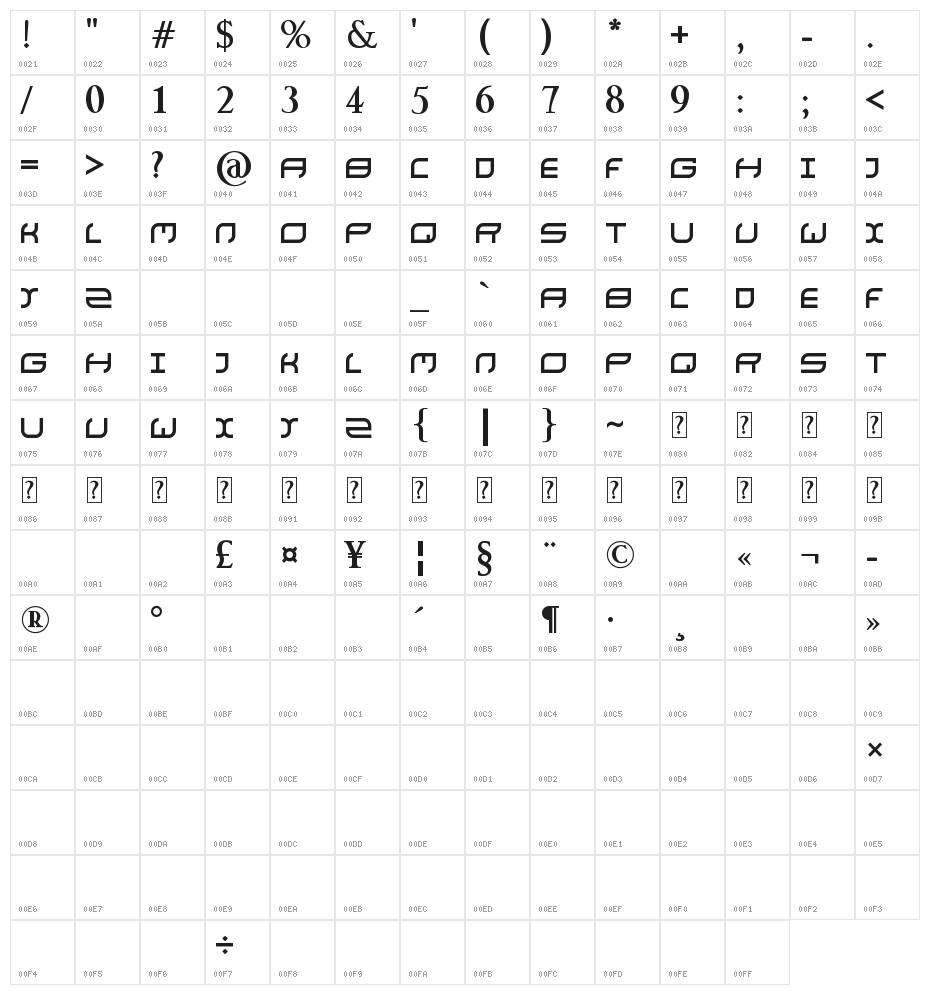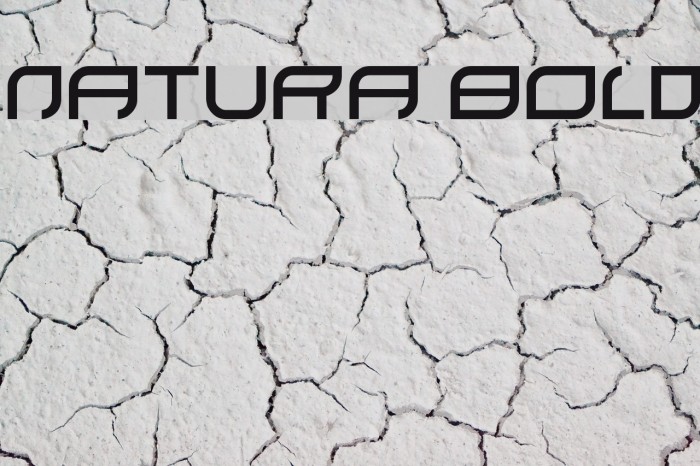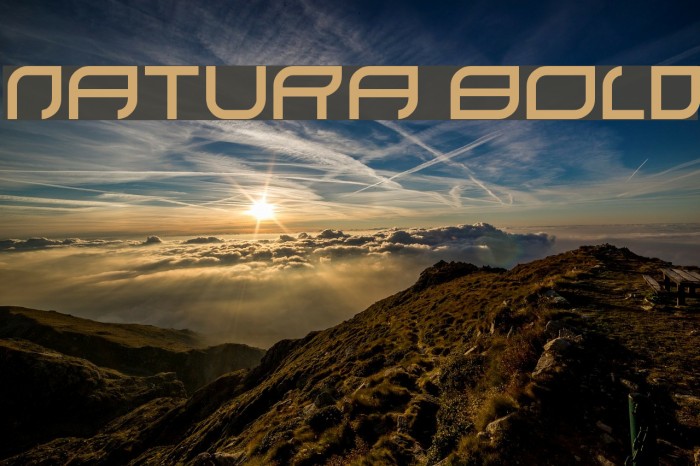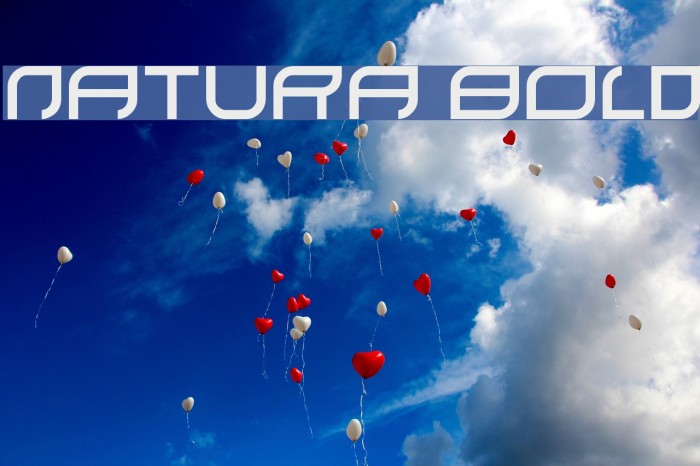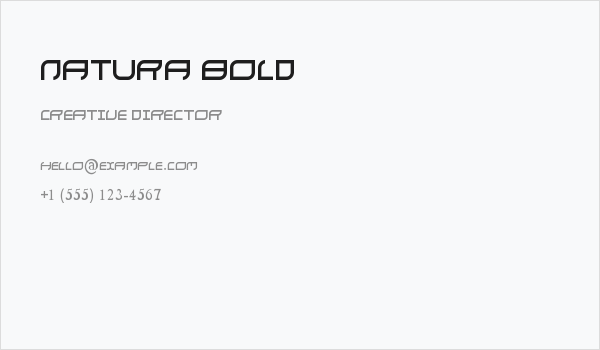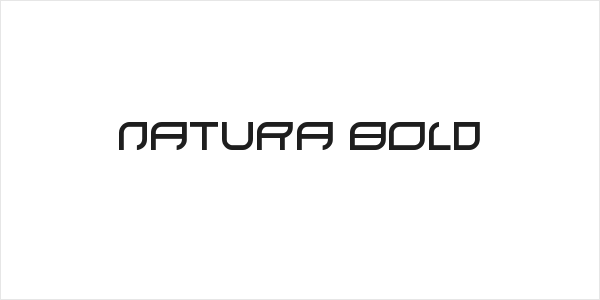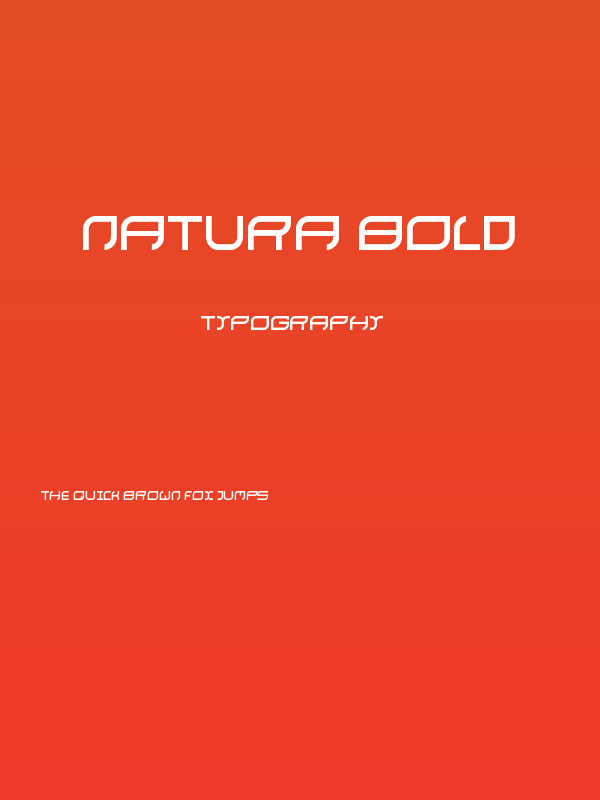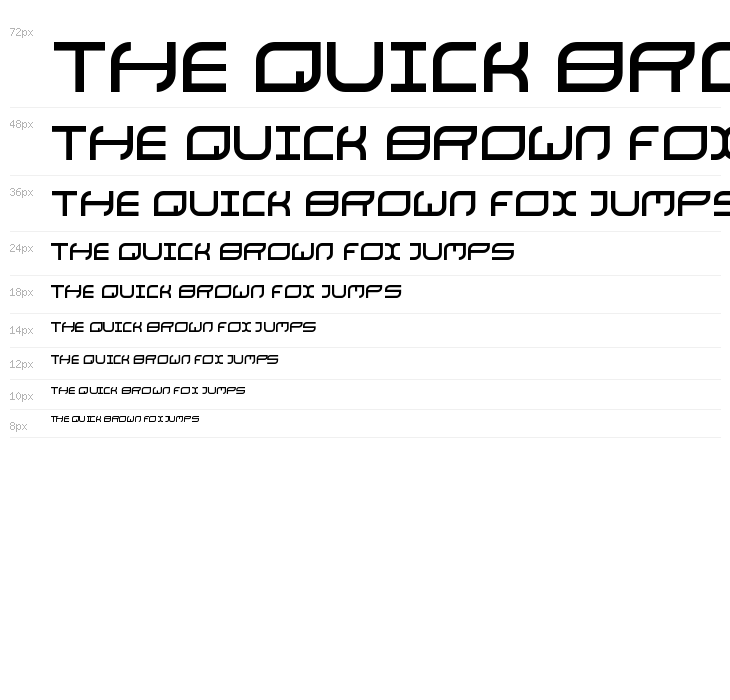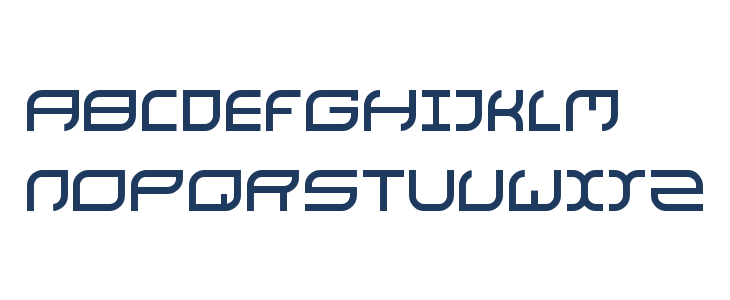
natura Bold Font
natura Bold Description
This font features a futuristic and geometric design with a strong emphasis on clean lines and angular shapes. The uppercase letters are distinct with a modern, tech-inspired aesthetic, while the lowercase letters maintain a consistent style that complements the uppercase. The numerals are bold and clear, designed for easy readability. Special characters are crafted with the same attention to detail, ensuring a cohesive look across all glyphs. The overall appearance is sleek and contemporary, making it suitable for projects that require a modern touch.
| Use Case | Headlines, Logos, Digital Interfaces |
| Proposed Projects | Ideal for technology branding, modern advertising, digital interfaces, and innovative product packaging. |